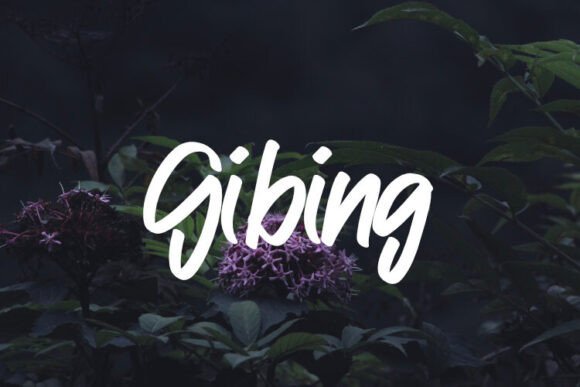
Unleash Your Creativity with Gibing Font: The Ultimate Choice for Fashion-Forward Designs
In the world of design, fonts play a crucial role in conveying the message and aesthetic of a brand. With numerous fonts available, finding the perfect one that resonates with your creative vision can be daunting. However, if you’re looking for a font that can elevate your fashion-forward creations, look no further than Gibing Font. This versatile font is specifically designed to make your designs stand out, and its compatibility with various software and availability in both OTF and TTF formats ensure a seamless creative process.
The Unique Charm of Gibing Font
Gibing Font is a one-size-fits-all font that promises consistency in artistry and elegance across all your products and designs. Its unique charm lies in its ability to adapt to various design styles, making it an ideal choice for fashion-forward creations like clothing and t-shirt designs. Whether you’re a designer, entrepreneur, or artist, Gibing Font is the perfect tool to unleash your creativity and take your designs to unrivaled heights.
Key Features of Gibing Font
- Versatility: Gibing Font is designed to be versatile, making it suitable for various design styles and applications.
- Consistency: Gibing Font promises consistency in artistry and elegance across all your products and designs.
Benefits of Using Gibing Font
- Consistency: Gibing Font ensures consistency in artistry and elegance across all your products and designs.
- Unique Designs: Gibing Font enables you to create unique and eye-catching designs that stand out from the crowd.
Applications of Gibing Font
Gibing Font is ideal for various design applications, including:
- Fashion Designs: Gibing Font is perfect for creating fashion-forward designs like clothing and t-shirt designs.
- T-Shirt Designs: Gibing Font is a great choice for creating eye-catching t-shirt designs.
- Clothing Designs: Gibing Font is suitable for creating stylish and elegant clothing designs.
- Graphic Designs: Gibing Font can be used for various graphic design projects, including brochures, posters, and business cards.
In conclusion, Gibing Font is the ultimate choice for fashion-forward designs. Its versatility, compatibility, and consistency make it an ideal font for designers, entrepreneurs, and artists. With Gibing Font, you can unleash your creativity and take your designs to unrivaled heights. So why wait? Download Gibing Font today and experience the power of elegant and stylish typography.
- What is Gibing Font? Gibing Font is a versatile font designed for fashion-forward creations like clothing and t-shirt designs.